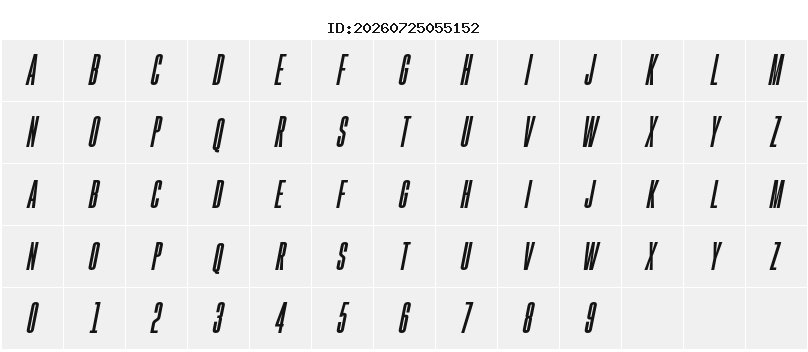
Gobold High Bold Italic Preview
• Font Name: Gobold High Bold Italic
• Font Style: Italique
• Full Font Name: Gobold High Bold Italic Italic
• Designer: Situjuh Nazara
About Gobold High Bold Italic.ttf
Gobold High Bold Italic.ttf is a modern, elegant sans-serif font designed for ultimate readability and visual harmony. Perfect for branding, headlines, web design, and print materials.